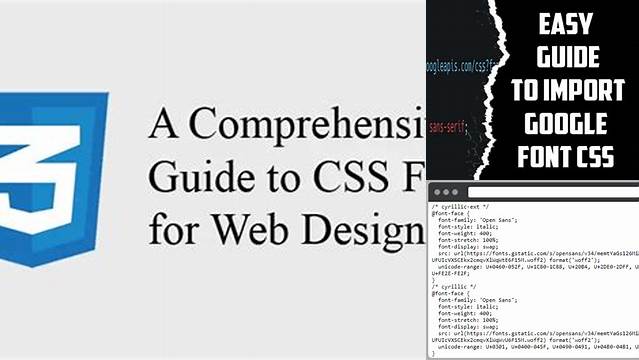
Best Fonts For CSS Import: A Comprehensive Guide
Hey everyone! Let's dive into the awesome world of fonts for CSS import. We're talking about making your websites look fantastic, right? Choosing the right font is super important, and knowing how to bring those fonts into your CSS is key. In this guide, we'll explore everything from picking the perfect font to making sure it loads smoothly and looks great on any device. So, grab your favorite drink, and let's get started on this journey of styling your web pages with awesome typography. We'll cover the basics, some cool tips, and even touch on performance to make sure your site not only looks good but also runs fast. Are you ready to make your website pop? Let's get started, guys!
H2: Understanding the Basics of CSS Font Import
Alright, guys, let's start with the basics of fonts for CSS import. When we talk about importing fonts in CSS, we're basically telling your website where to find the fonts it needs to display text the way you want it. This is usually done using the @import rule or, more commonly, using the @font-face rule. The @import rule is like saying, "Hey CSS, grab this file, which contains font information." While it's simple, it has some performance drawbacks. The @font-face rule, on the other hand, is more versatile and recommended. It allows you to define the font, its name, its source (where the font file is located), and even the font weight and style. This gives you a lot more control over how your text appears. You can import fonts from various sources, like Google Fonts, Adobe Fonts, or even custom fonts that you have hosted on your server. Each method has its own set of instructions, but the core concept remains the same: you're telling your website how to access and use specific fonts. Let's break down the @font-face rule a bit. This is where the magic happens. You specify the font-family property to give your font a name (like "MyCustomFont"). Then, you use the src property to tell the browser where to find the font file. You can specify different formats like woff, woff2, ttf, or otf to ensure the font works on different browsers. It is also important to consider the order in which you list these font formats, as browsers will try them in the order listed. Keep in mind that the more fonts you import, the more the page load time may increase, so consider optimizing your font choices carefully.
Importing fonts in CSS isn't just about making your website look pretty; it is about enhancing the user experience. The right font can make your content more readable, engaging, and aligned with your brand's personality. A well-chosen font can improve your website's readability and make it more appealing, which is a significant part of a good user experience. But remember, performance matters. Make sure you're optimizing your font choices so your website loads quickly, and your visitors have a seamless experience. Also, make sure that you always respect font licensing agreements when importing fonts.
H3: Differences Between @import and @font-face in CSS
Alright, let's get into the nitty-gritty of fonts for CSS import and compare @import and @font-face. Both methods bring fonts into your CSS, but they do it differently, and it's good to know the pros and cons of each. First, we have the @import rule. It is super straightforward. You use it at the beginning of your CSS file to import an external stylesheet. This stylesheet can contain font information. For example, if you're using Google Fonts, you will often see a line like @import url('https://fonts.googleapis.com/css?family=Roboto');. It's simple and gets the job done, but the performance can be a concern. Browsers may load @import-ed stylesheets sequentially, which can slow down your website, as each font needs to be loaded before the page can render the text. On the other hand, @font-face is the more powerful and recommended method. This is where you define your fonts directly in your CSS. You tell the browser the font family name, and then you specify where the font files are located using the src property. This gives you a lot more control. You can specify different font formats, weights, and styles, ensuring your fonts look consistent across all browsers. @font-face is also generally more performant because it allows browsers to download the font files in parallel, improving the website's load time. Using @font-face also gives you more flexibility. You can customize how your fonts render on different devices or screen sizes. The @font-face approach is better for performance, especially if you're using custom fonts. Always make sure that you're using the correct file paths. It may seem a little more complex initially, but the performance benefits and greater control make @font-face the preferred choice for most developers. So, while @import is simple, @font-face is the way to go for performance and customization when importing fonts.
Ultimately, when dealing with fonts for CSS import, the main takeaway is to opt for @font-face for its superior control, flexibility, and performance benefits. @import can be a quick fix, but its sequential loading can hurt your site's speed. Using @font-face, you can create a much better user experience by ensuring your fonts look great and your site loads fast. This ensures the text is consistent and renders correctly. This approach helps maintain a smooth and engaging browsing experience. And don't forget to choose fonts that look great and complement your website's design. The right typography can make a big difference in how users perceive your site. This also helps with overall branding and improves the user experience.
H2: Selecting the Right Fonts for Your Website
When considering fonts for CSS import, the first step is choosing the right fonts. This goes beyond just picking something that looks nice. You need to consider readability, branding, and the overall design of your website. There are several factors to keep in mind to choose the right fonts. First and foremost, readability is key, especially for body text. The font should be easy to read on different screen sizes and devices. Serif fonts like Times New Roman or Georgia can be great for body text, as the serifs help guide the reader's eye, particularly in printed materials. However, sans-serif fonts like Arial or Open Sans often work better on screens because they are cleaner and easier to read at smaller sizes. Always check the readability of the font across all platforms. Brand identity is also crucial. Your fonts should reflect your brand's personality and values. If you want to appear modern and tech-savvy, you might choose a clean sans-serif font. If you're going for a more classic and elegant feel, a serif font could be a better fit. Make sure the font aligns with your brand's voice. Consistency is also essential. Stick to a limited number of fonts to maintain a cohesive look. Using too many fonts can make your website look cluttered and unprofessional. It's generally recommended to use two or three fonts at most. One for headings, one for body text, and potentially a third for accent elements. The design and layout are key for readability. Think about where and how the font will be used. A bold, decorative font might work well for a headline, but it would be terrible for body text. Consider the context where the font will appear. For example, what is the background color? Does the font stand out against the background, or does it blend in too much? Also, think about the overall design. Does the font complement the other design elements on your website, like images and colors? Does it create a visual harmony? The design should flow and create a good experience.
Choosing the right fonts is a crucial step. However, it doesn't just end there, it's essential to also consider font pairing. Font pairing is about selecting fonts that work well together. When choosing fonts, consider how they will look when combined. For example, you might pair a strong serif font for headings with a clean sans-serif font for body text. This combination can provide contrast and visual interest while maintaining readability. There are many resources available, such as online font pairing tools, that can help you choose complementary fonts. Test the fonts on your website before committing. Preview your chosen fonts in different contexts, such as headings, paragraphs, and buttons. This will give you a good idea of how they will look on your website. Remember to test the font on different devices. Mobile devices and large desktop screens render fonts differently. Always preview how they look and feel on all platforms. Ultimately, selecting the right fonts is all about finding fonts that are readable, brand-aligned, and visually appealing. By keeping these factors in mind, you can make informed decisions and make your website even more visually stunning and user-friendly.
H3: Google Fonts: A Great Resource for CSS Font Imports
Google Fonts is one of the best resources for fonts for CSS import. It's a free service that offers a massive library of fonts, making it easy to find the perfect typography for your website. What makes Google Fonts so awesome? First, it is completely free to use. This makes it accessible for all developers, regardless of budget. You don't have to pay any licensing fees, so you can focus on creating. Secondly, Google Fonts is super easy to use. You can browse the library, choose your fonts, and get the CSS code you need to import them into your website. Google Fonts provides many fonts, including various weights and styles. This variety allows you to choose the perfect font to match your design. All fonts are web-optimized, which means they load quickly, ensuring your website's performance isn't affected. Many of the fonts come with multiple weights and styles, giving you many options.
With Google Fonts, you can integrate fonts in a few different ways. One way is to use the @import rule in your CSS. You simply paste the code provided by Google Fonts into your CSS file. This is a quick method, but as we discussed earlier, it could affect your website's speed. The more recommended way is to use the <link> tag in your HTML. Place the link tag within the <head> section of your HTML. This method helps optimize loading times. Google Fonts also provides the @font-face rule. This option provides more customization, allowing you to fine-tune how your fonts appear. Each method has its pros and cons, but the most important thing is to choose what works best for your needs and the performance requirements of your website. Google Fonts is also constantly updated with new fonts, giving you fresh options. Using Google Fonts is like having a massive font store at your fingertips, and it helps you improve your website's appearance. Google Fonts has quickly become one of the most popular fonts for websites because it offers an easy, free, and reliable way to get great fonts. And finally, Google Fonts is a great choice if you are looking to improve your website's typography quickly and without spending anything. And with so many options, you are bound to find the font that matches your style and branding.
H2: Importing Custom Fonts: The @font-face Rule Explained
As we dive into fonts for CSS import, let's get into importing custom fonts using the @font-face rule. This is where you take full control over your website's typography. The @font-face rule is a CSS rule that allows you to define your custom fonts and then use them in your website. With this method, you can use any font you want, whether it's a free font, a premium font, or even a font you've created yourself. The @font-face rule requires you to provide several pieces of information. Let's break it down, so you know how to use it. First, you'll need to specify a font-family name. This is how you'll refer to the font in your CSS. Choose a name that is easy to remember. Next, you will need the src property. This is where you tell the browser where to find your font files. Within the src property, you will need to specify the URL of your font files. Typically, you'll have different font file formats to ensure the font renders correctly across different browsers. Always consider the font formats such as woff, woff2, ttf, and otf. Each browser supports different font formats, so it is important to include all of them for full compatibility. Next, you'll be able to use properties such as font-weight and font-style. This allows you to specify the weight (e.g., normal, bold) and style (e.g., italic) of your font.
When importing custom fonts, you'll need to make sure your font files are correctly licensed. It is also important to ensure your font files are optimized. Large font files can slow down your website's loading time, so it's important to optimize them. You can use tools like Font Squirrel to optimize your font files by compressing them or converting them to other formats. Organize your font files in a logical folder structure on your server. This will make it easier to manage your fonts. You can also use a content delivery network (CDN) to serve your font files. A CDN will deliver your font files from servers closer to your users, improving loading times. Now, using the @font-face rule allows you to use any font on your website. This opens a world of possibilities for your design. But, remember that performance is key, so optimize your font files and use the right formats to ensure a great user experience. The @font-face rule provides the most flexibility and control when importing custom fonts. This ensures that your website displays your chosen fonts correctly across all browsers. It's important to understand the benefits and how to set up custom fonts using the @font-face rule, which is crucial to a visually stunning and unique website.
H3: Troubleshooting Common Font Import Issues
When working with fonts for CSS import, you may encounter a few bumps. Let's go through some common issues and how to fix them so you can get your fonts working perfectly. One of the most common problems is incorrect file paths. Make sure your font files are in the correct location on your server, and the paths you've specified in your CSS are accurate. Double-check for typos or missing slashes. If you are using the @font-face rule, verify that you've provided the correct URLs for your font files in the src property. Another common problem is font format support. Not all browsers support all font formats. The most recommended approach is to provide multiple formats like woff, woff2, ttf, and otf. This ensures that your font works correctly on all browsers. Another issue is caching. Browsers cache files to speed up loading times. If you've updated your font files, the browser might still be using the old versions. You can fix this by clearing your browser's cache. Alternatively, you can add a cache-busting query string to your font file URLs. This tells the browser to download the new version of the file. You also need to ensure that your font is loaded properly. You can use the browser's developer tools to inspect your website's network activity. Look for errors related to font loading. You can also use the font-display property in your @font-face rule to control how the font is displayed. Finally, make sure that you've spelled your font-family names correctly in your CSS. This can be a simple typo that causes your font to not show up. Always double-check all of these when trying to import fonts.
Dealing with fonts for CSS import, there are other problems such as font licensing. You must have the right to use any font you import. Always make sure that you have the proper license to use the font. Also, ensure that you have the correct character sets, particularly if your website supports multiple languages. It can be as simple as the font files not supporting specific characters. You may also experience performance issues. Importing too many fonts or large font files can slow down your website. You can fix this by optimizing your font files and only importing the fonts you need. To handle all these issues, the first step is always to carefully review your code for any errors. It is also recommended that you check your website on different browsers and devices to see how the font renders. The browser's developer tools can be very helpful. By checking these, you can identify and fix any problems related to font loading. Troubleshooting can be a bit tricky, but with a systematic approach, you can find the problem and get your fonts working correctly. Once you've fixed these issues, your website will look great, and your users will have a much better experience.
H2: Optimizing Font Performance for Faster Loading
Optimizing fonts for CSS import is all about ensuring your website loads quickly. This is critical for a good user experience. Let's explore some strategies to make sure your fonts don't slow things down. One of the first things you can do is limit the number of fonts you import. The more fonts you use, the longer it takes for your website to load. Stick to one or two fonts for a consistent design. Next, use font formats efficiently. WOFF2 is the most efficient format. It is supported by most modern browsers. If you are using older browsers, you may also need to use WOFF. Always provide the font formats as a backup. Remember that you must optimize your font files. Large font files can significantly slow down your website. Use tools like Font Squirrel to compress your font files. They also allow you to convert them into different formats. You should also subset fonts. Subsetting a font means removing characters you don't need, resulting in smaller files. Only include the character sets you will use on your website. Caching is also essential. Tell browsers to cache your font files so they don't have to download them every time a user visits your site. You can do this by setting the Cache-Control header in your server's configuration. Use a Content Delivery Network (CDN). CDNs store your font files on servers closer to your users, which helps speed up loading times. Many CDNs are designed to serve fonts.
When optimizing fonts for CSS import, consider using font-display. The font-display property tells the browser how to handle the font while it is loading. The most common values are: swap (the font swaps immediately after the font is loaded, but it initially uses a fallback font), fallback (short time before the fallback font is used), and optional (which is the most conservative, and the font is used if it loads within a short time). You should also consider preloading fonts. Preloading tells the browser to start downloading your font files as soon as possible. You can do this using the <link rel="preload"> tag in your HTML. You also need to avoid render-blocking fonts. By default, browsers render a page only after all fonts are loaded. To avoid this, you can load fonts asynchronously or use the font-display property. These approaches will speed up initial page load. Minimizing HTTP requests can also help. Each font file requires an HTTP request. Combine your CSS files to reduce the number of requests. By implementing these strategies, you can improve your website's performance. A faster website leads to a better user experience and a higher search engine ranking. Your website will look better, and your visitors will have a more pleasant time browsing your content. Your users will thank you for it!
H3: Font Subsetting and Its Benefits for Website Speed
Font subsetting is a useful method when you're dealing with fonts for CSS import. It helps improve your website's speed by ensuring that only the characters you need are loaded. The idea behind font subsetting is simple. A font file typically includes all the characters, symbols, and glyphs the font designer created. However, most websites use only a small fraction of these characters. By subsetting a font, you're essentially creating a custom version of the font that contains only the specific characters your website needs. This results in a much smaller font file, which loads faster. The benefits of font subsetting are significant. First and foremost, font subsetting improves website speed. Smaller font files mean faster loading times, which is critical for user experience and SEO. A faster website keeps users engaged and helps with your search engine rankings. Reducing the file size can lead to a big performance boost. This can significantly improve your website's performance. Second, font subsetting also reduces bandwidth usage. This saves on server costs and helps your website be more accessible to users with slower internet connections. When fewer data needs to be downloaded, this can be important for users on mobile devices or in areas with limited bandwidth. Third, it is also simple to implement. Several tools are available to help you subset your fonts. Many of them are easy to use, allowing you to quickly create custom font files. Using these tools saves time, as well as provides many optimization techniques.
With fonts for CSS import, the process of subsetting your fonts is easy. You can use online tools like Font Squirrel or Fontello to generate a subset of your font. You will need to choose the characters you want to include in your subset. You can specify the character sets based on the languages your website supports. You can also select specific glyphs for your website. Then, you can download the generated font files. These files will be significantly smaller than the original font files. After generating the font files, you can use them in your CSS. Make sure you update your @font-face rule to point to the new font files. Testing your website after subsetting is crucial. Ensure all the characters you need are displayed correctly. You should also measure the page load speed to confirm that the font subsetting has improved performance. There are also considerations when subsetting fonts. The main issue is to be careful not to remove characters you may need in the future. Always include all the characters that are used in your website. Ensure that the character sets you include support all the languages on your site. Font subsetting helps you optimize your website's speed and improve the user experience. So, if you are serious about website performance, this is a simple and effective way to optimize your fonts. It's a simple step that can have a big impact on your website's performance and user experience.
H2: Best Practices for Font File Formats and Compatibility
When it comes to fonts for CSS import, understanding font file formats and compatibility is essential. Different browsers support different font file formats. Knowing which formats to use and how to ensure compatibility across all browsers is key to a great-looking website. The key font file formats are WOFF, WOFF2, TTF, and OTF. WOFF (Web Open Font Format) is designed specifically for use on the web. It is supported by most modern browsers. WOFF2 is a newer, more efficient version of WOFF. It offers better compression, resulting in smaller file sizes and faster loading times. TTF (TrueType Font) and OTF (OpenType Font) are older formats. They are widely supported but often have larger file sizes. The recommended practice is to use WOFF2 whenever possible, as it offers the best performance. Include WOFF as a fallback for older browsers. If your website supports older browsers, including TTF or OTF is also advisable.
When using fonts for CSS import, the most important step is to ensure that you provide different file formats to support all browsers. To ensure that your fonts work correctly across all browsers, you should include multiple font file formats in your @font-face rule. This way, the browser can choose the appropriate format it supports. You can provide the font formats by adding the src property to the @font-face rule. In this property, list the URLs for your font files in different formats. You should also consider the order in which you specify the formats. The browser will try to load the formats in the order you list them. The best order is usually WOFF2, then WOFF, then TTF, and lastly OTF. Remember that you should test your website on different browsers and devices. Always make sure that your font renders correctly on all platforms. Use browser developer tools to check for errors related to font loading. There may be times when you may run into font-rendering issues. You can handle these issues by testing and using different tools to view the fonts. This ensures that your website looks great on every device. Be sure to also consider the specific versions of each browser. Older browsers may not support the latest formats. Always support the older browsers.
H3: Using Font Loading Strategies for a Better User Experience
Font loading strategies are an important aspect when dealing with fonts for CSS import. Using effective font loading strategies can greatly improve your website's user experience by ensuring that text is displayed quickly. One of the most important strategies is using font-display. The font-display property in the @font-face rule lets you control how the browser handles the font while it's loading. There are several options for font-display. The most common is swap. With font-display: swap, the browser initially uses a fallback font and then switches to your custom font once it is loaded. This ensures that the text is always displayed and avoids the invisible text flash. There is also font-display: fallback. This provides a very short time for the font to load before switching to the fallback font. This is useful if you want to make sure that the custom font is displayed if possible. With font-display: optional, the browser only downloads the custom font if it loads quickly. This is a very conservative approach. The idea is to prioritize speed. It ensures that the text is displayed quickly, but it may mean your custom font isn't always shown. Choose the right value for font-display based on your website's needs. If you want to prioritize text visibility, swap is often the best choice. If you want to minimize layout shifts, you may want to choose fallback or optional.
When considering fonts for CSS import, you can preload fonts. Preloading tells the browser to start downloading your font files as soon as possible. You can preload fonts by using the <link rel="preload"> tag in the <head> section of your HTML document. This is helpful because it gives the browser time to download the font files before they're needed. Preloading fonts can be useful to make the text on your website render faster. Asynchronous font loading is a great strategy. By default, browsers may block rendering until all fonts are loaded. To avoid this, you can load your fonts asynchronously. You can achieve this using the font-display property or by adding the crossorigin attribute to your <link> tag. By using font-display and asynchronous font loading, you can ensure that your text is always displayed quickly and that your website's performance is optimized. Your website visitors will appreciate the smooth and seamless experience. A smooth experience will lead to higher engagement and more time on your site. With a bit of planning, your visitors won't even notice the fonts are loading. Use these strategies to ensure your visitors get a great experience.
H2: Font Licensing and Legal Considerations
When it comes to fonts for CSS import, we need to discuss font licensing and legal considerations. Using fonts on your website is more than just choosing something that looks nice. You also need to make sure you have the proper rights to use them. This is essential for protecting yourself from legal issues. There are different types of font licenses, and they vary significantly. The most common is the desktop license, which typically allows you to use the font for print and design purposes. It might not cover web use. Web fonts are different. They require a specific license that allows you to embed the font in your website. Open source licenses are available for some fonts. They are usually free to use for both personal and commercial projects. The license will tell you what you can and can't do with the font. You should always read the license carefully. Make sure you understand the terms. These include the permitted uses, restrictions, and any attribution requirements. Some licenses might allow you to use the font on a limited number of websites. Others might restrict your usage to specific domains or projects. Always check the license, and if anything is unclear, reach out to the font creator or the vendor to clarify.
With fonts for CSS import, you must also consider where you get your fonts. When you get your fonts from a reliable source, you can be confident that you have the necessary licensing. Also, you should consider any usage restrictions. Some licenses might restrict the number of page views or the number of websites you can use the font on. Others might require you to credit the font designer. You should also ensure that you keep records of your font licenses. This includes the license documents and any proof of purchase. This documentation will protect you if any legal questions arise. You must also consider the consequences of violating a font license. Using a font without a license or violating the terms of a license can lead to serious legal consequences, including fines and lawsuits. It is essential to respect the terms of the license and to ensure that you are compliant with all applicable regulations. It protects your website from legal issues. It also maintains a professional image and helps maintain positive relationships with font designers and vendors. Be sure that you understand the rules so that you can legally display your fonts.
H3: Understanding Different Font Licenses: A Guide
As we look at fonts for CSS import, we need to dive into different font licenses. Font licenses are the rules that govern how you can use a font. Understanding these licenses is key to staying out of trouble and using fonts legally. There are several types of font licenses. The desktop license is the most common. It's usually for print and design, and it might not allow you to use the font on your website. The web font license is specifically for embedding fonts on websites. It usually has different terms and pricing than the desktop license. The open-source license is for fonts that are free to use for personal and commercial projects. Always check the specific terms of the license. Some fonts may also come with an EULA (End User License Agreement). This agreement outlines all of the rules and restrictions for using the font. Read these agreements carefully. They can be quite lengthy, but they're important to understand. This agreement specifies how you can use the font, if you can modify it, and how you can distribute it.
With fonts for CSS import, let's look at the common terms you will find in licenses. The permitted usage defines what you are allowed to do with the font. This might include using the font for websites, print materials, or apps. Restrictions are rules that limit how you can use the font. This might limit the number of page views, websites, or the types of projects you can use the font. Attribution is a requirement to credit the font designer or the font vendor. This is usually required, so be sure you include it if needed. Always be sure to read the terms and conditions of the license before using a font. Be careful, as some licenses may not allow you to modify the font. Also, some licenses may require you to purchase a license for each website that uses the font. Font licensing can be complicated. When in doubt, always consult with a legal professional or the font designer. It is very easy to be compliant with the license terms. Always make sure you understand the specific terms before using the font. Keep records of your licenses, which includes your license documents and any proof of purchase. This can be important if any questions arise about your font usage.